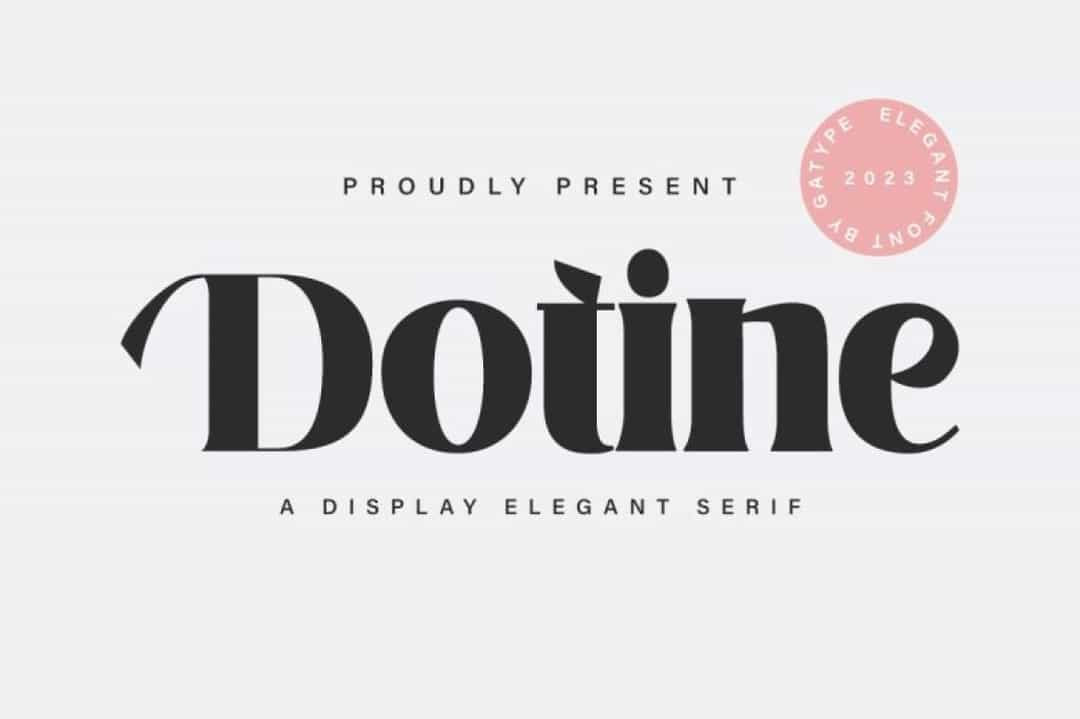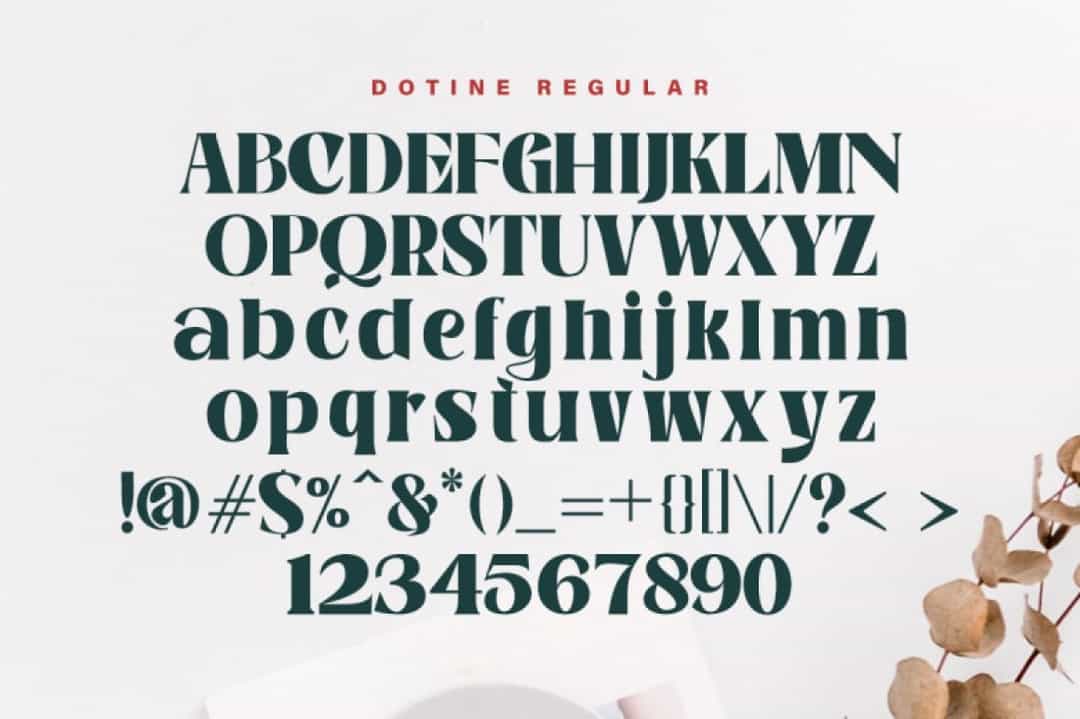
Dotine is a captivating visual serif font which will appeal to your target audience and make your advertising and projects shine brightly. Available with various characters for ligatures, Dotine can give your brand more prominence while adding modernity and class by customizing its font for use with business cards, printed quotes, invitations packaging and websites/social media logos.